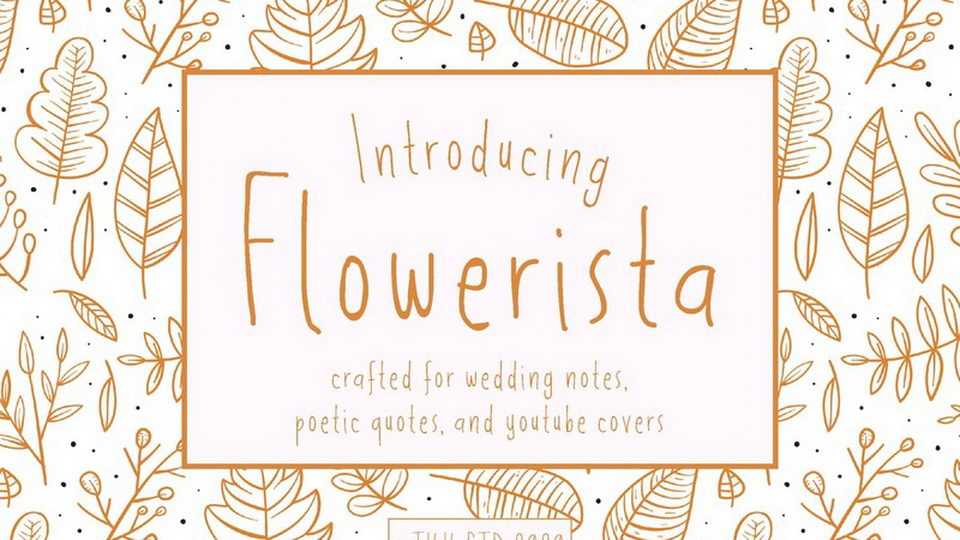
Download Flowerista font, a light hearted typeface with a softness and kindness in every letter it is written. With floral and flower vibe, bring all nature and softness in the writing.